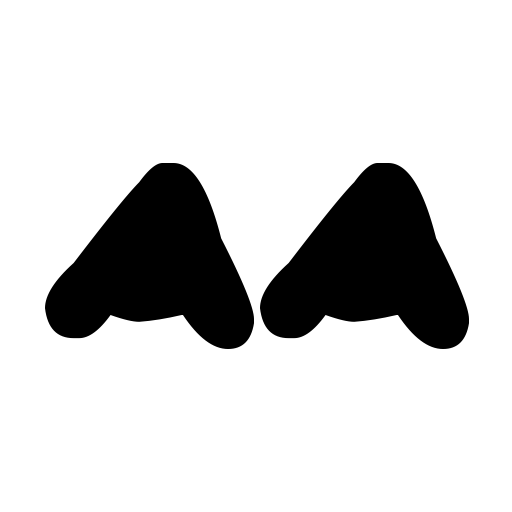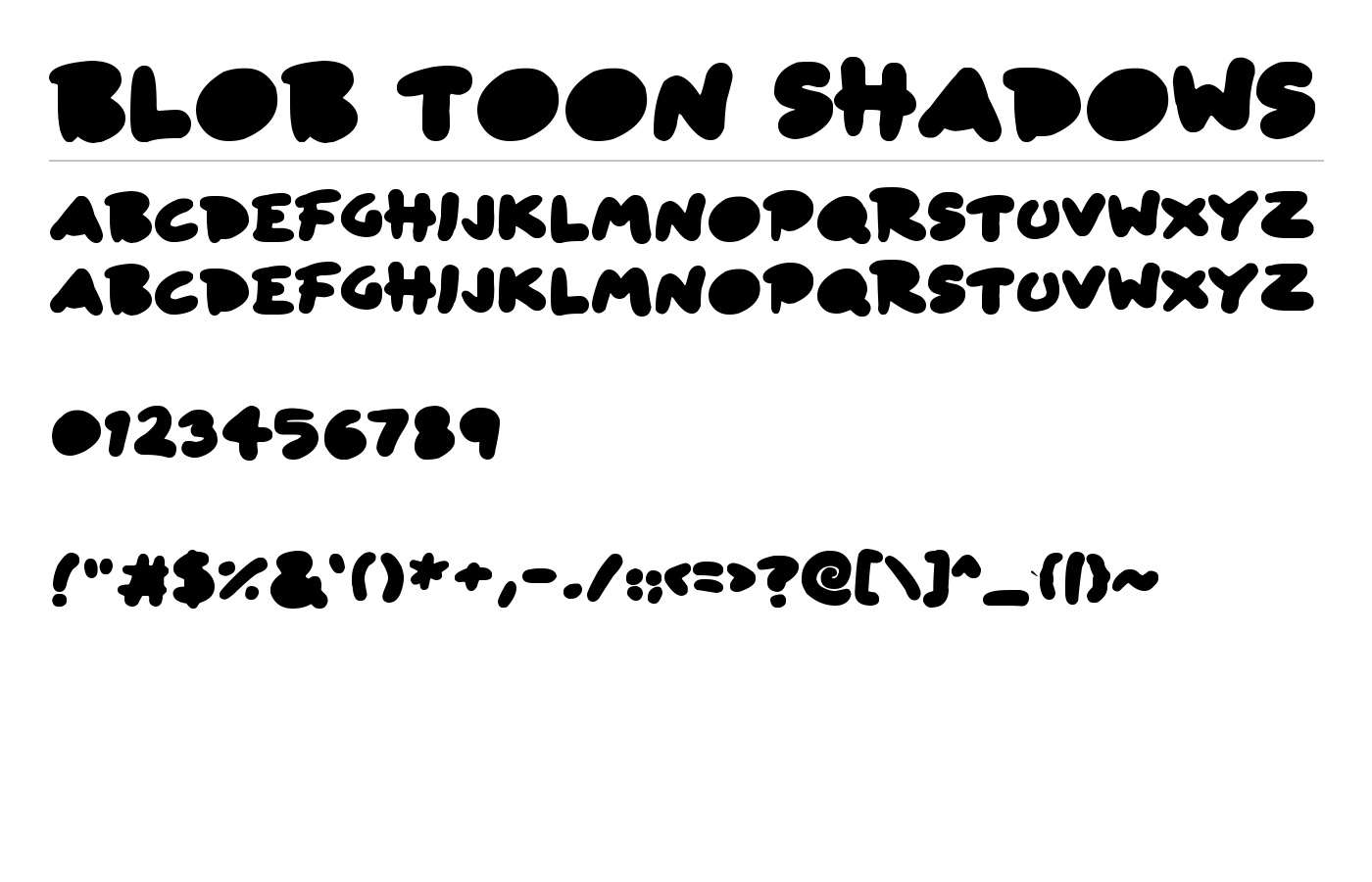
Blob Toon Shadows is a playful, bold, and rounded display font with a cartoonish charm, featuring thick, irregular shapes that give it a lively and fun vibe. Its heavy weight and soft, blobby edges make it perfect for eye-catching headlines, children’s books, posters, or any design that calls for a whimsical and casual personality. This font works best where a friendly and approachable look is desired, adding a touch of humor and creativity.
Blob Toon Shadows Font
About Blob Toon Shadows Font